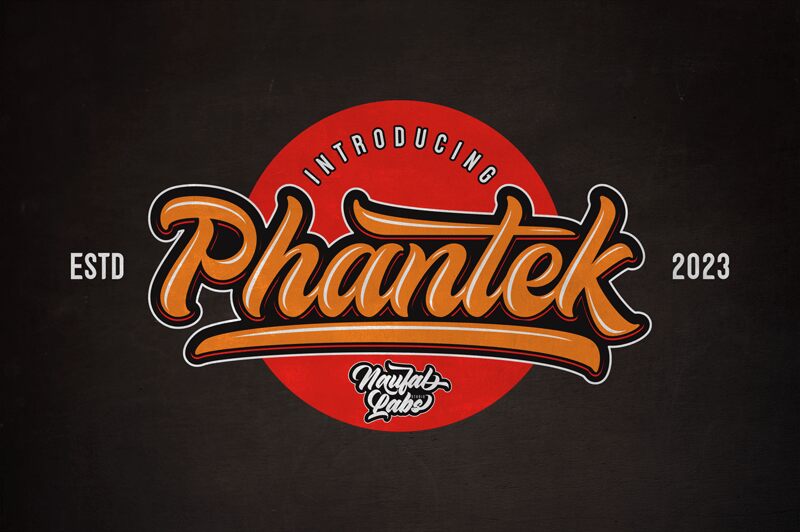
Phantek, crafted by Naufal Labs, is a captivating smooth brush font with a powerful bold presence. This strong script font exudes the charm of natural hand-lettering, bringing an organic and personal touch to your designs. Its elegant flow and striking visual impact make it ideal for creating standout headlines, logos, and branding materials.
Whether you're aiming for a modern aesthetic or seeking to add warmth and character to your project, Phantek's dynamic style offers versatility. Perfect for posters, social media graphics, invitations, or any creative venture where you want to leave a lasting impression with bold yet graceful typography.
Phantek
Designed by MOH. MA'IN from Naufal Labs Studio in 2023.